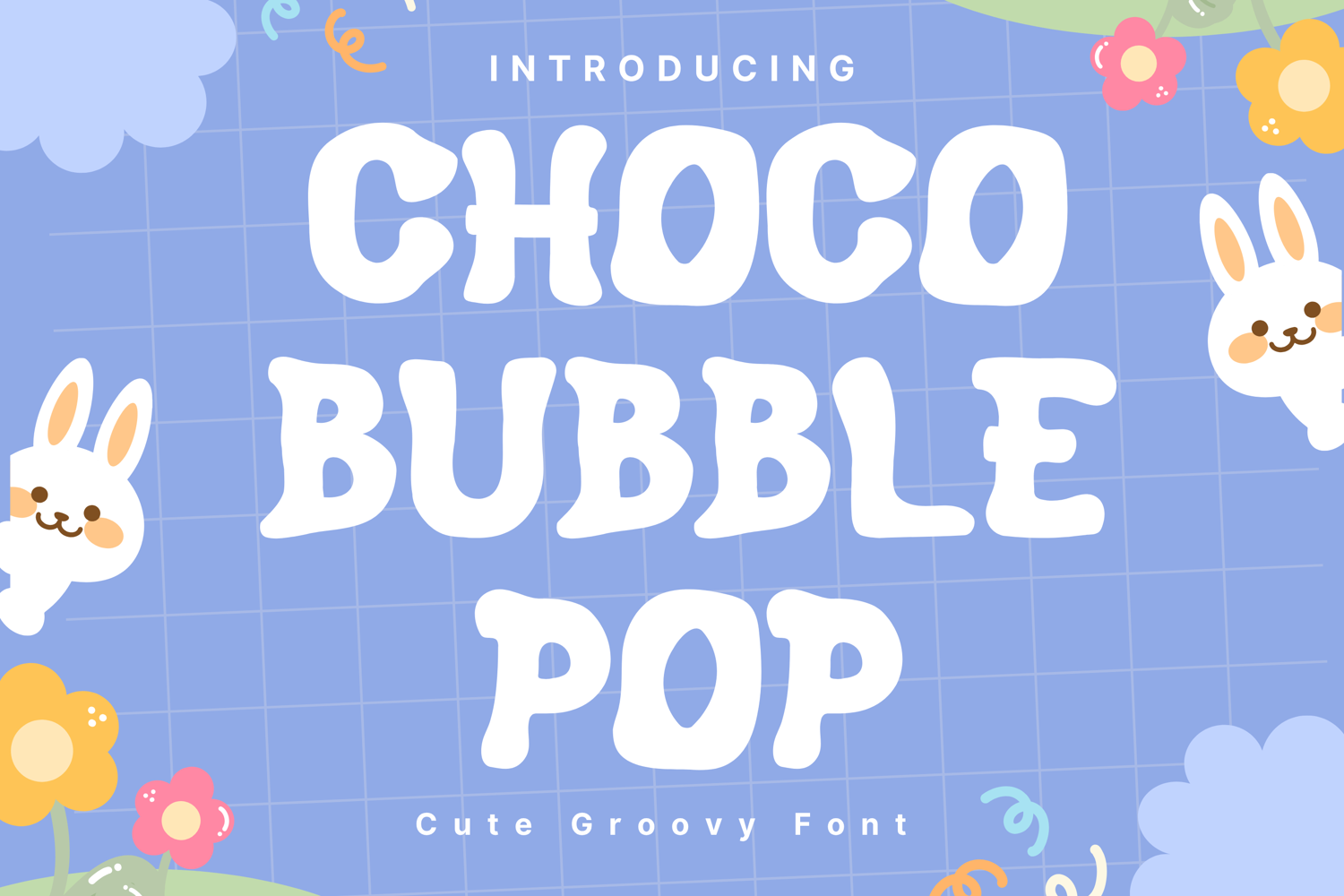
Choco Bubble Pop Style
ChocoBubblePop
Choco Bubble Pop is a bold, rounded display font with a playful, bouncy feel. Its thick, bubble-like letters give off a sweet and friendly vibe, making it ideal for candy brands, children’s products, bakery packaging, party invitations, and fun digital graphics. The font’s soft curves and chunky style create a sense of warmth and approachability while remaining highly readable.